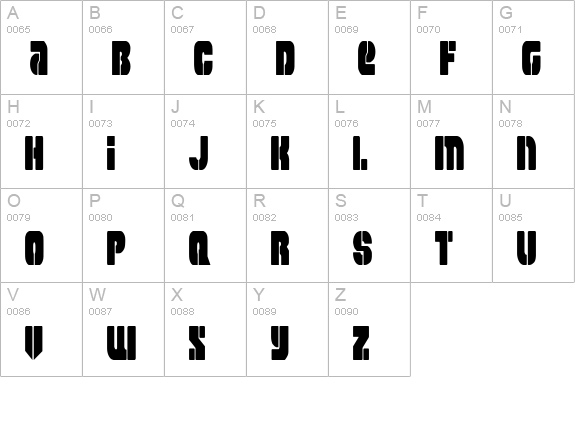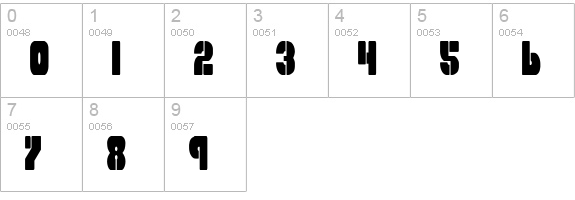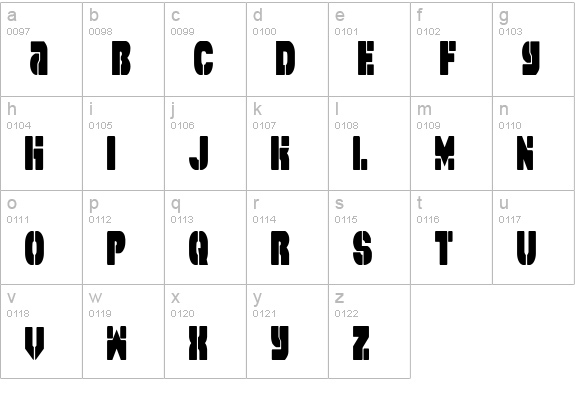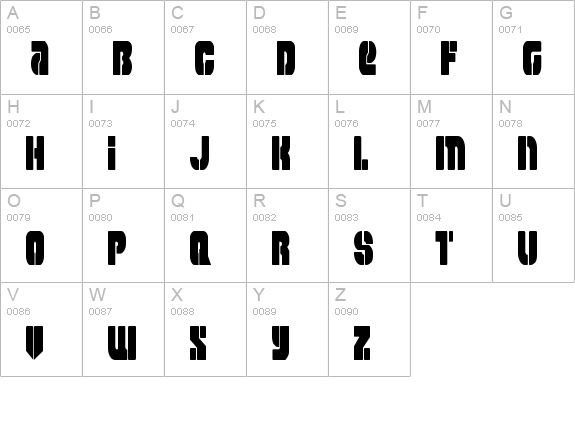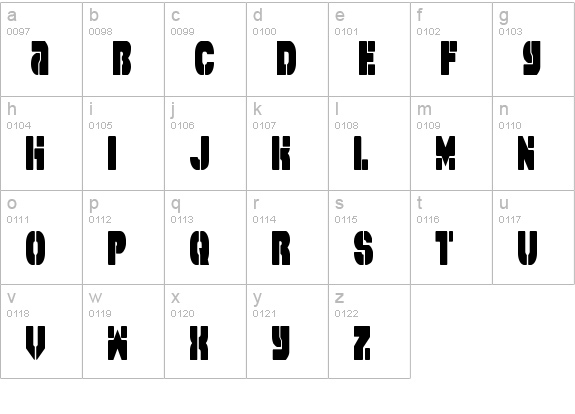
Space Cruiser Condensed Font Details
Space Cruiser Condensed is a distinctive, condensed-width variant in the Space typeface family \xE2\x80\x94 well suited to design and typography projects.
Space Cruiser Condensed is a sleek and modern font that captures the essence of interstellar travel. With its clean lines and futuristic design, this font evokes a sense of adventure and exploration. Perfect for sci-fi enthusiasts and designers alike, Space Cruiser Condensed adds a touch of cosmic elegance to any project. This versatile font is ideal for headlines, logos, posters, and any other design that requires a bold and eye-catching look. Its condensed nature allows for maximum impact, ensuring that your message stands out from the crowd. Whether you're creating a movie poster for a blockbuster space epic or designing a futuristic website, Space Cruiser Condensed will take your project to new heights. But what truly sets Space Cruiser Condensed apart is that it is available for free. That's right, this incredible font can be downloaded at FontsMarket.com without any cost. We believe in making quality design accessible to everyone, and Space Cruiser Condensed is no exception. So why wait? Head over to FontsMarket.com and get your hands on this stellar font today. Unleash your creativity and let Space Cruiser Condensed guide you on a journey to the stars.